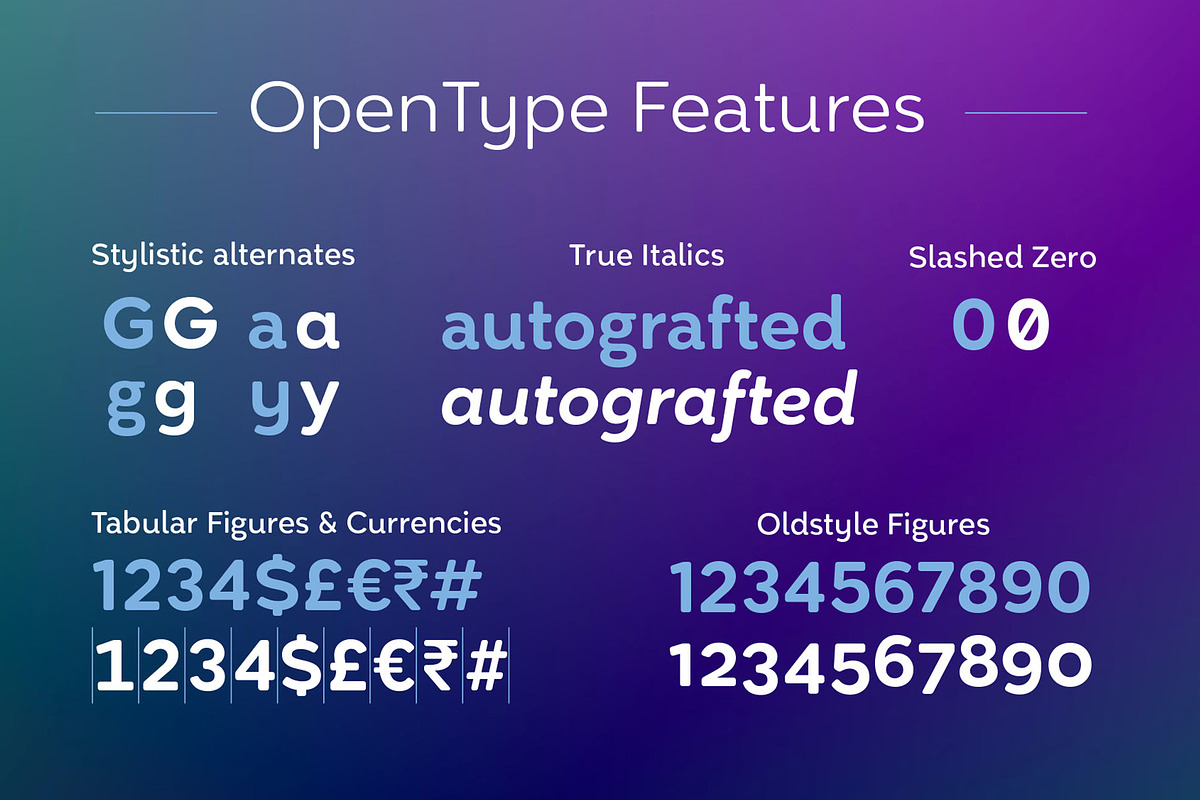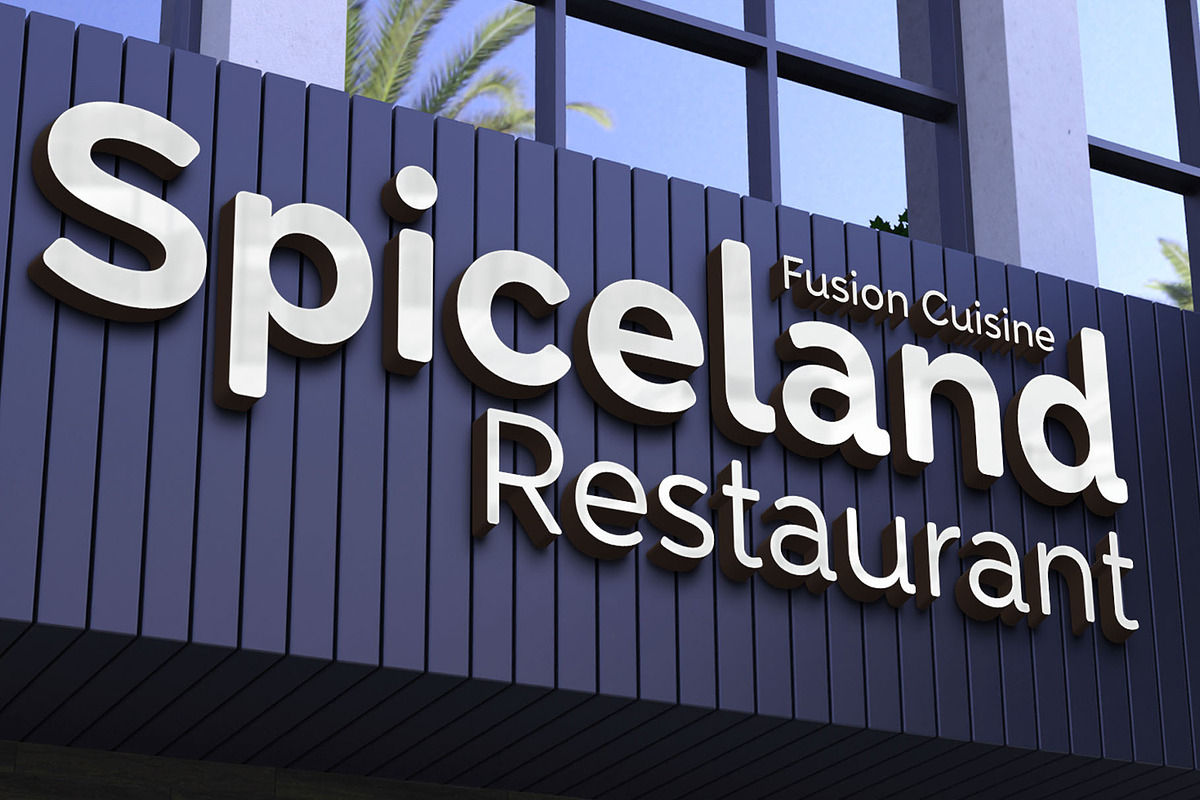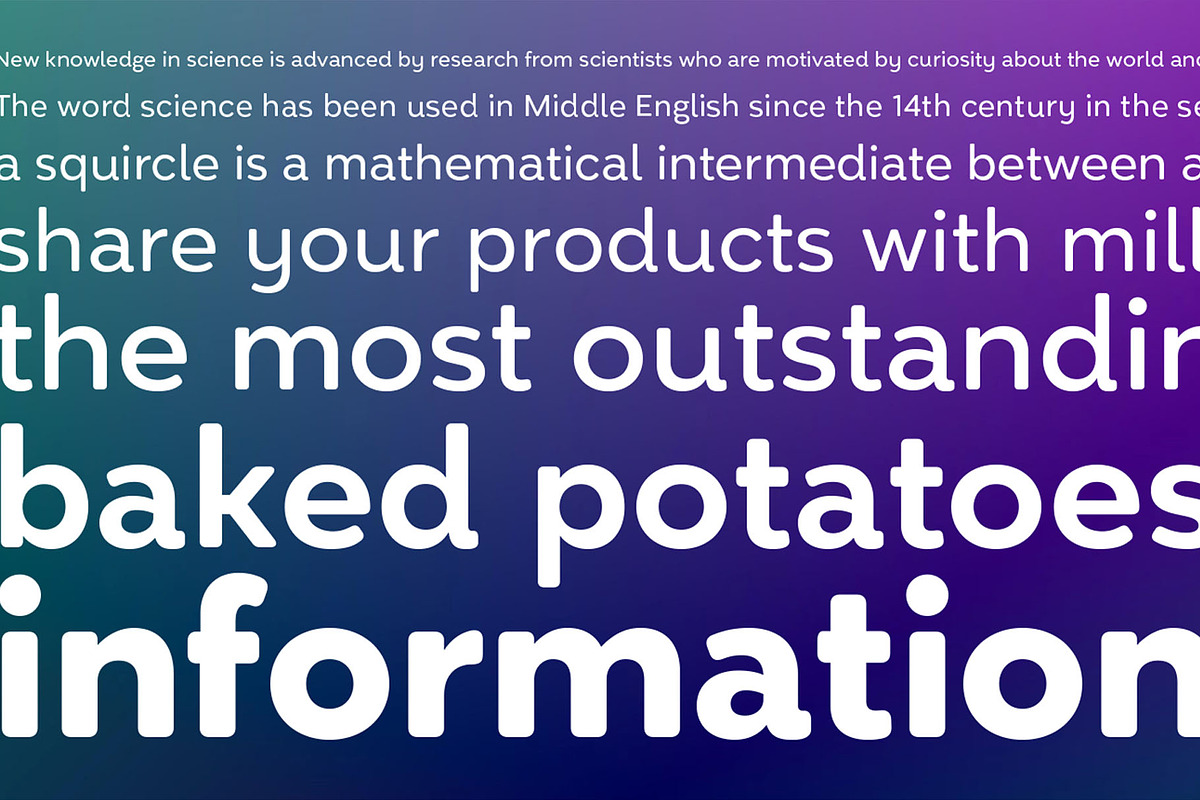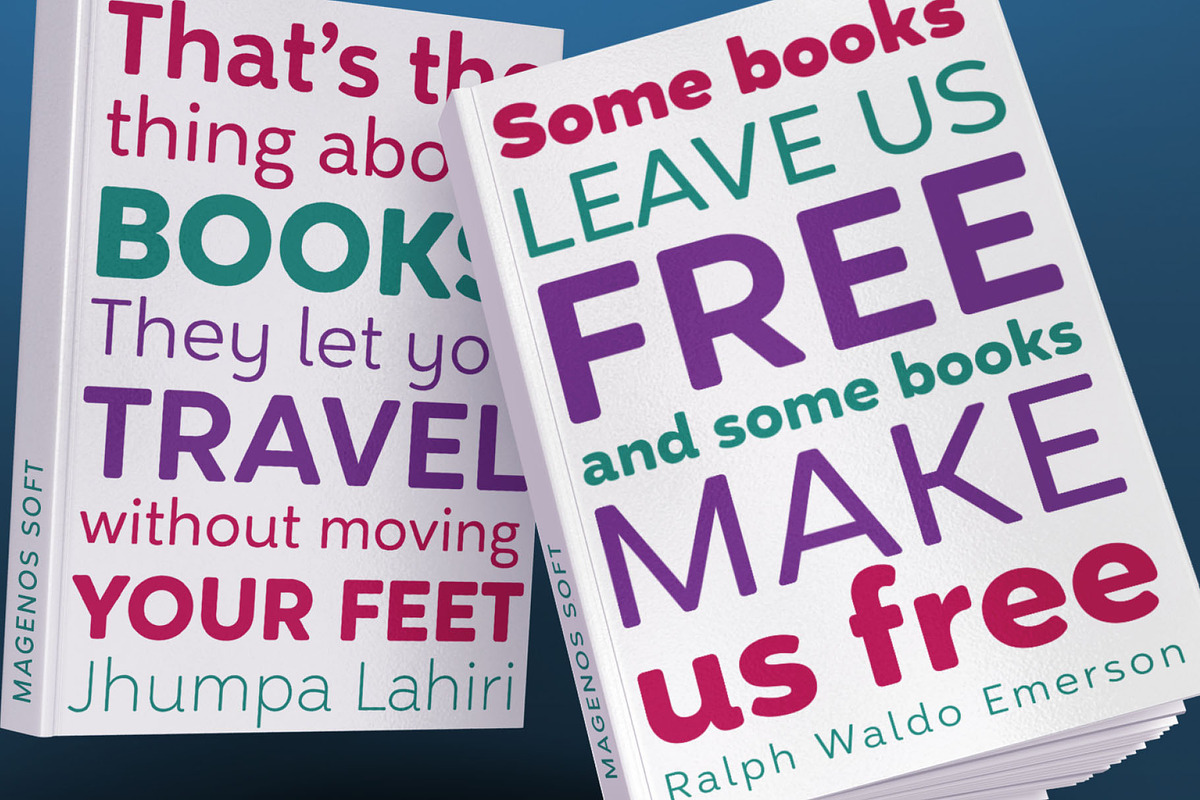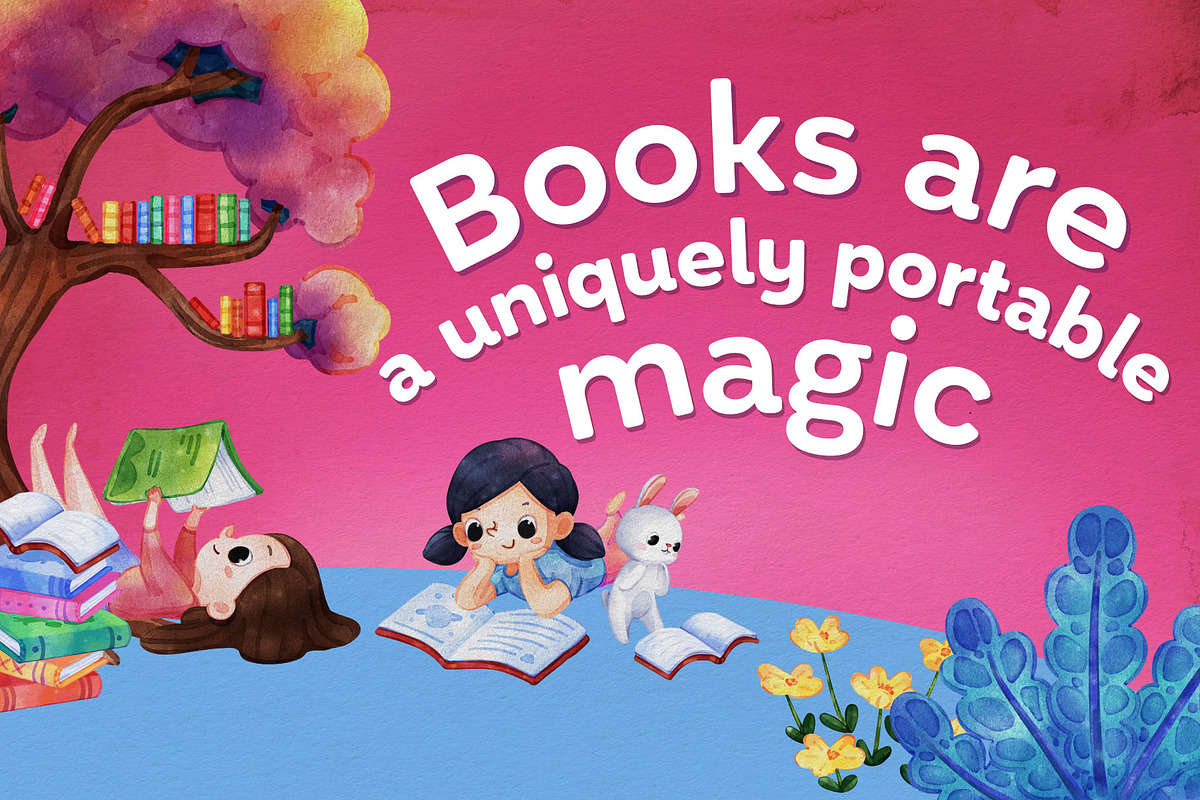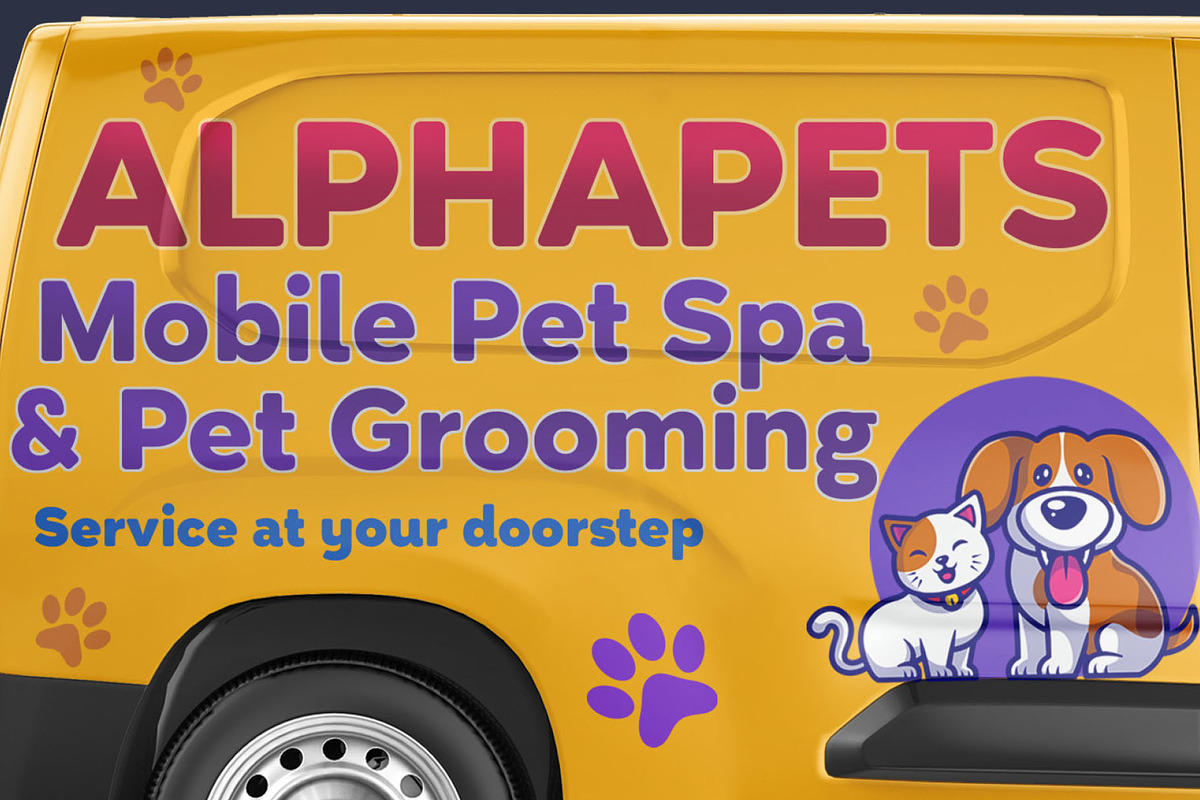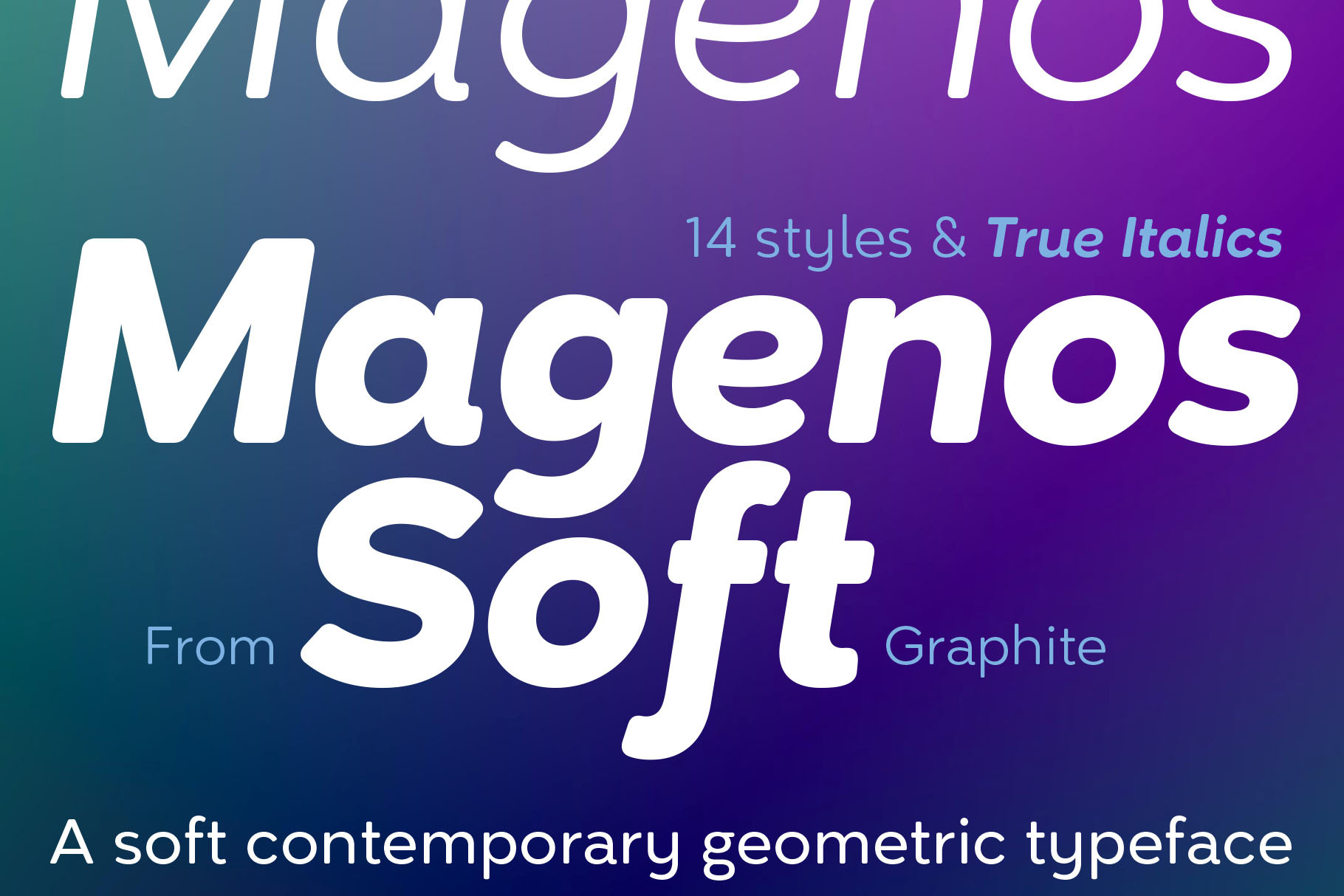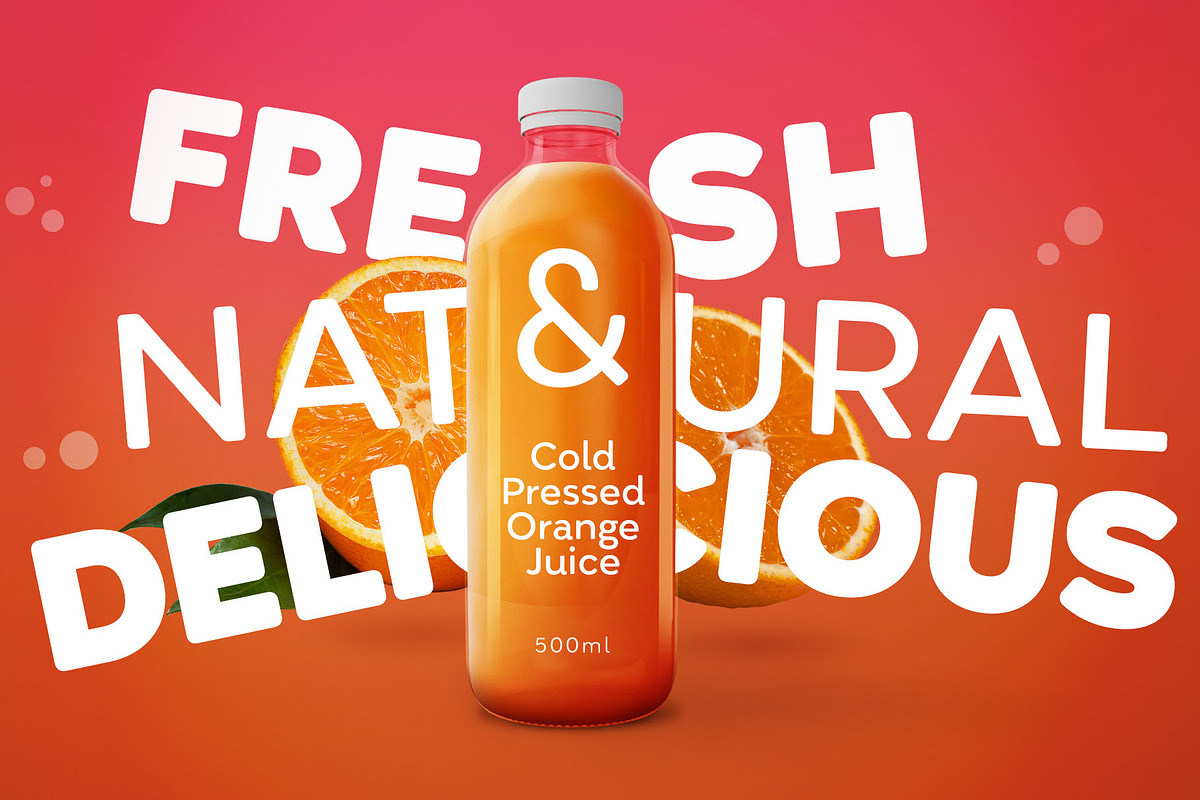
Magenos Soft is the rounded version of Magenos typeface family. It is a modern geometric sans serif family characterized by its simplicity and extensive functionality. With its open apertures, geometric architecture and low contrast strokes, it expresses a sincere tone with a modernistic, neutral, yet friendly personality. It has been designed to work well for a wide range of applications and is a reliable workhorse.
Equally suitable for print and screen usage, it works well for both text and display at a wide range of point sizes. The addition of true italics gives the whole family a dynamic edge and flexibility.
Magenos Soft comes with many OpenType features including stylistic alternates, standard ligatures, oldstyle and lining (proportional and tabular) numerals, slashed zero and a variety of symbols, making it a perfect choice for contemporary and professional typography.